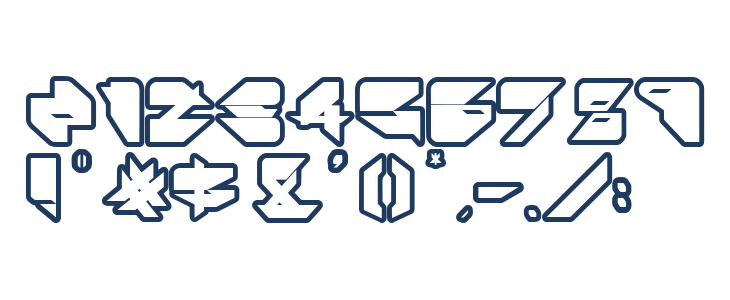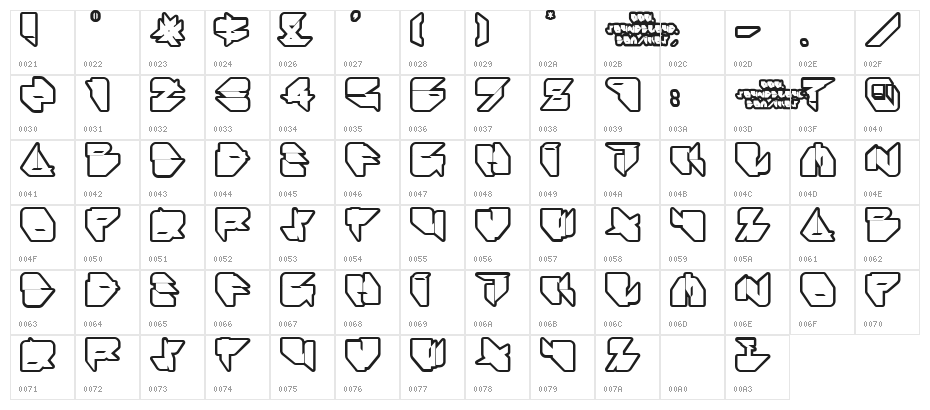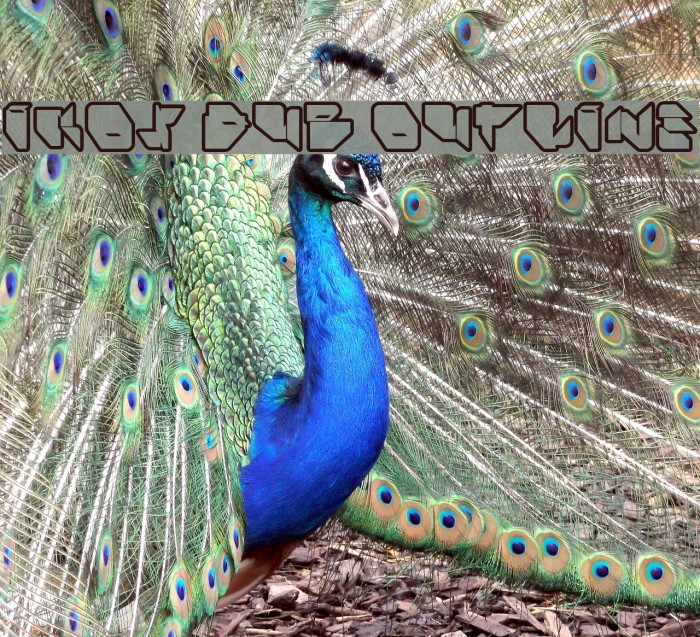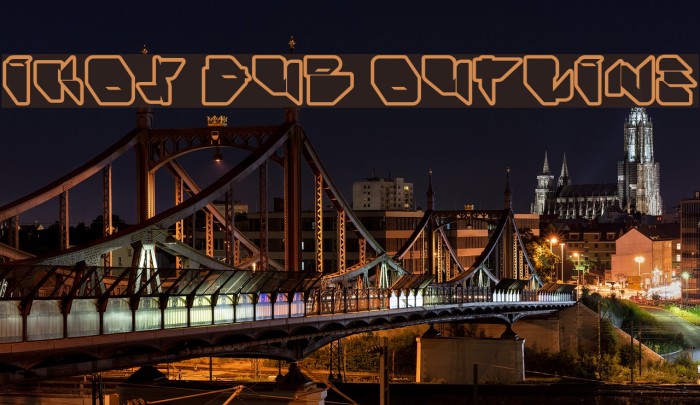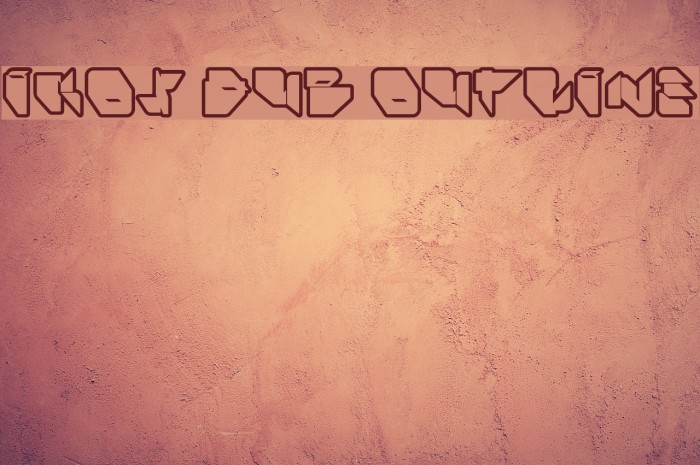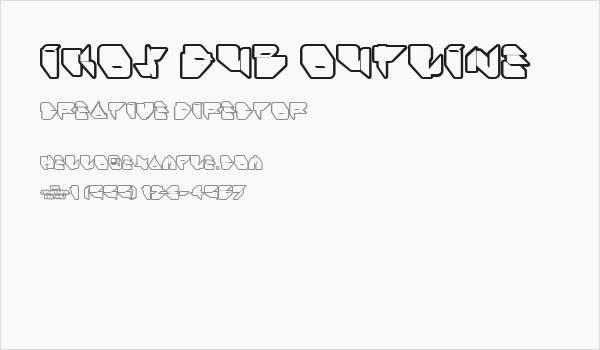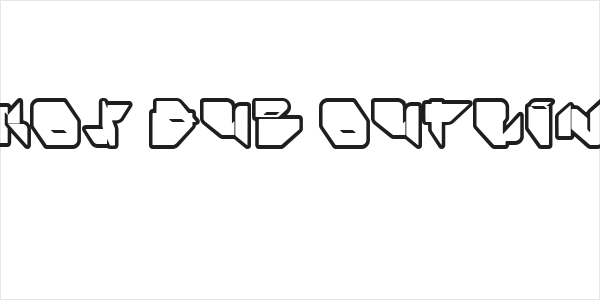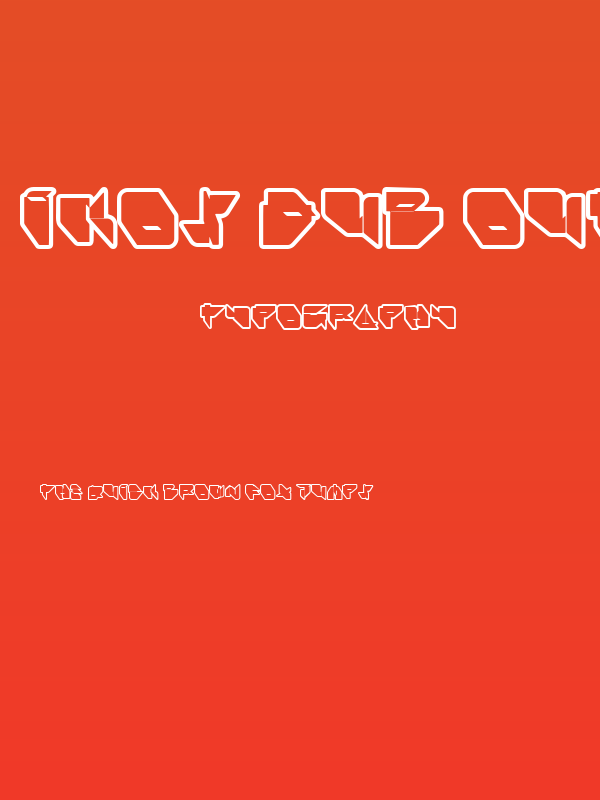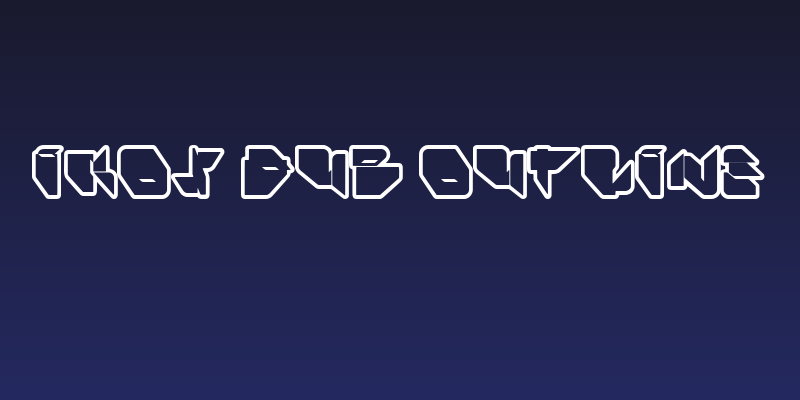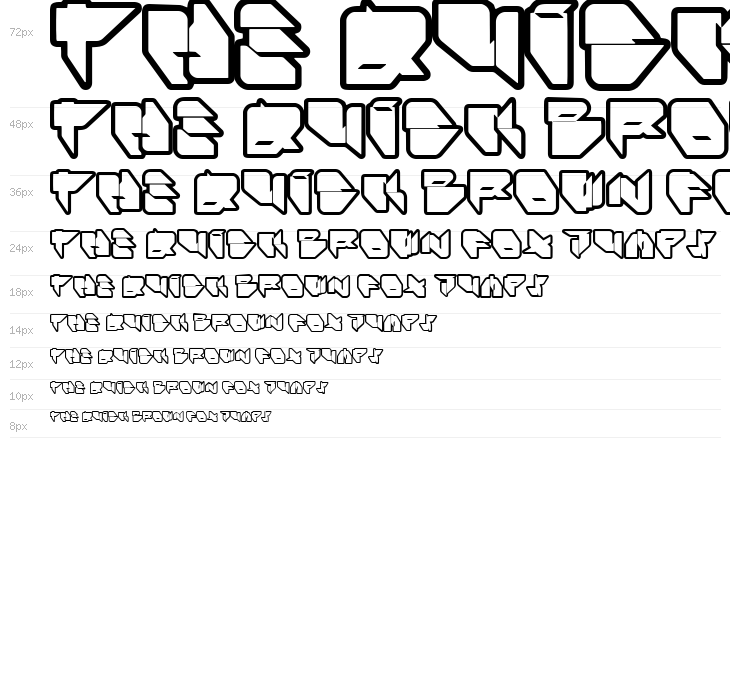
Ikos Dub Outline Font
Ikos Dub Outline Description
This font features a bold, geometric outline style with a futuristic and edgy appearance. The characters are constructed with sharp angles and straight lines, creating a sense of movement and modernity. The uppercase and lowercase letters maintain a consistent design, emphasizing the angular and structured form. The numbers and special characters follow the same aesthetic, ensuring uniformity across all glyphs. This font's unique design makes it stand out, ideal for projects that require a strong visual impact.
| Overall Style | Futuristic, Modern |
| Proposed Projects | Perfect for sci-fi themed designs, video game graphics, posters, and branding that requires a modern and striking appearance. |